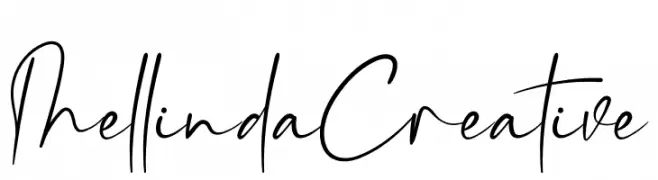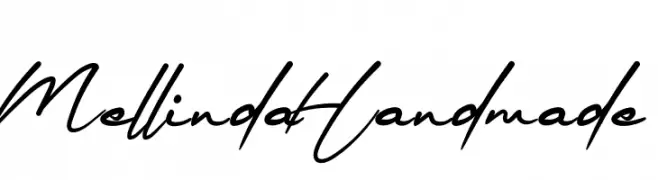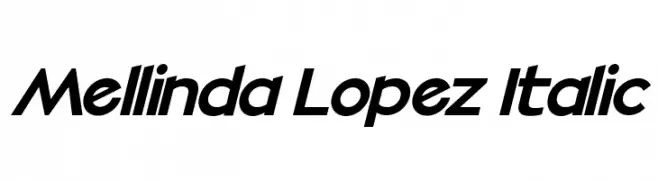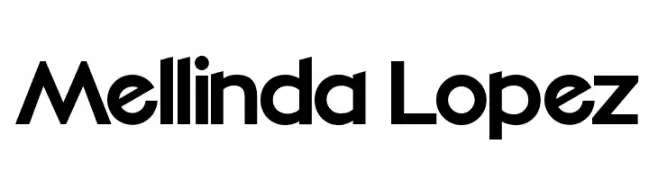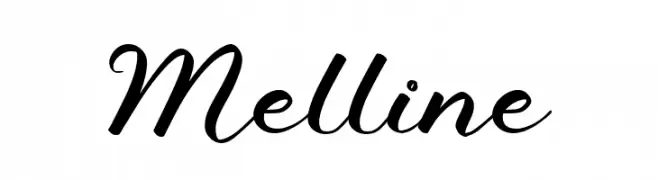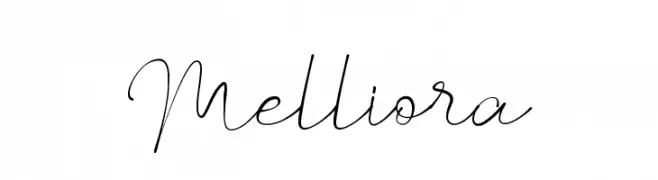
An elegant font with swash elements, combining classic and modern styles.
A bold, expressive brush script font with a dynamic, hand-painted style.
Casual handwritten script font.
Handwritten cursive script font.
A bold, modern sans-serif font with geometric lines and a strong, cohesive appearance.
A modern, bold sans-serif font with geometric and clean lines.
A sleek, modern italic font with consistent stroke thickness and a flowing appearance.
A modern, italicized font with smooth, consistent strokes and medium contrast.
A sophisticated and elegant script font with fluid, cursive letterforms.
An elegant and flowing script font with smooth, cursive lines.